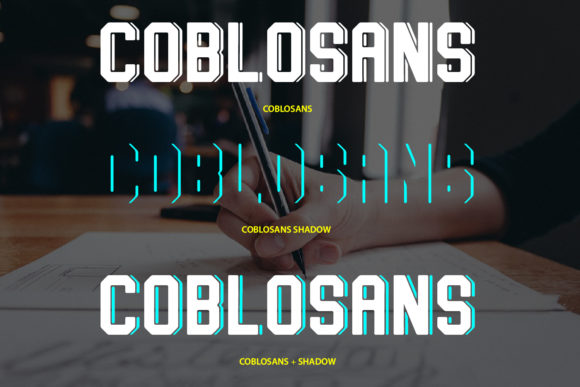
Coblosans Font
**Introducing Coblosans, the Display Font that Will Unleash Your Creative Spirit!**
Embark on a captivating typographic journey with Coblosans, an enchanting display font that weaves refreshing patterns against the backdrop of the unexpected.
Coblosans is a font of exquisite contrast, effortlessly balancing the allure of the conventional with the audacity of the unconventional. Its captivating glyphs dance gracefully across your designs, infusing them with a captivating allure that is sure to leave a lasting impression.
With Coblosans, the ordinary becomes extraordinary. Whether you're crafting eye-catching headlines, captivating logos, or enchanting branding materials, this font will elevate your creative vision to new heights. Its versatile nature seamlessly adapts to any design aesthetic, making it the perfect choice for a myriad of projects.
Experience the transformative power of Coblosans and witness how its unique charm breathes new life into your designs. Let your imagination soar and unleash the boundless possibilities that await you with this extraordinary display font.